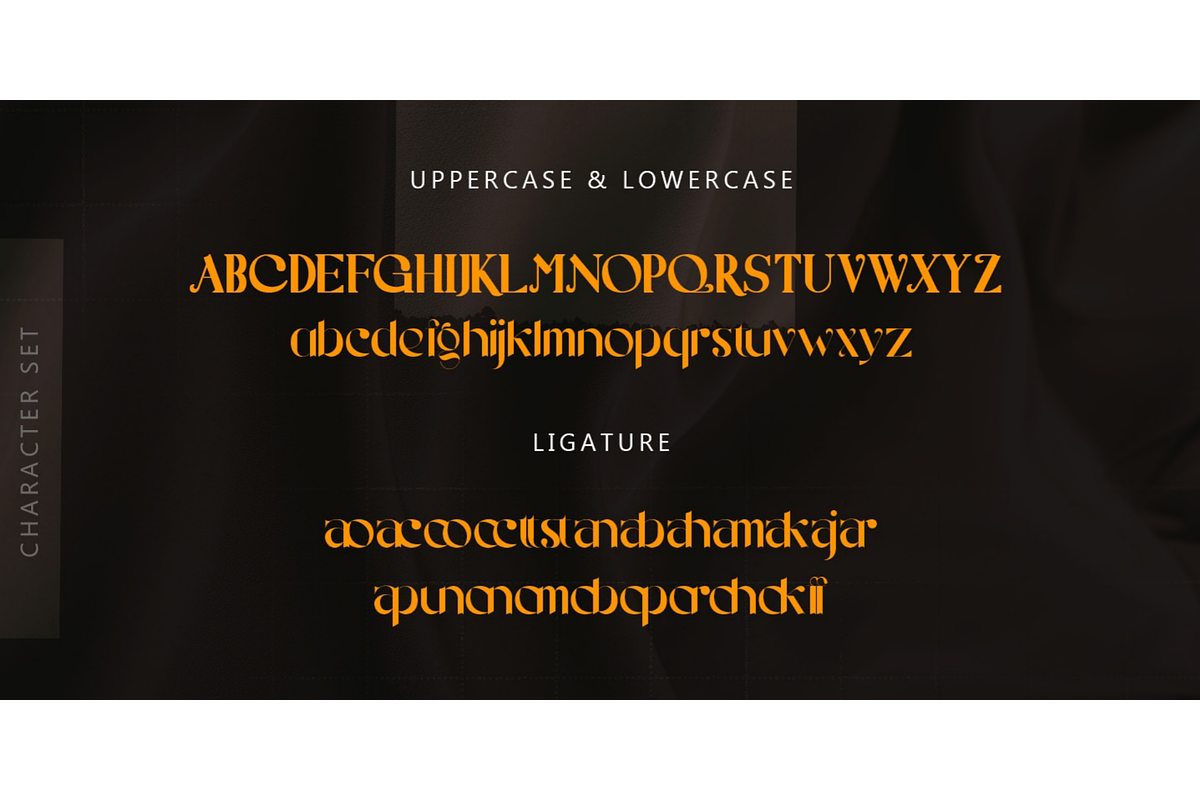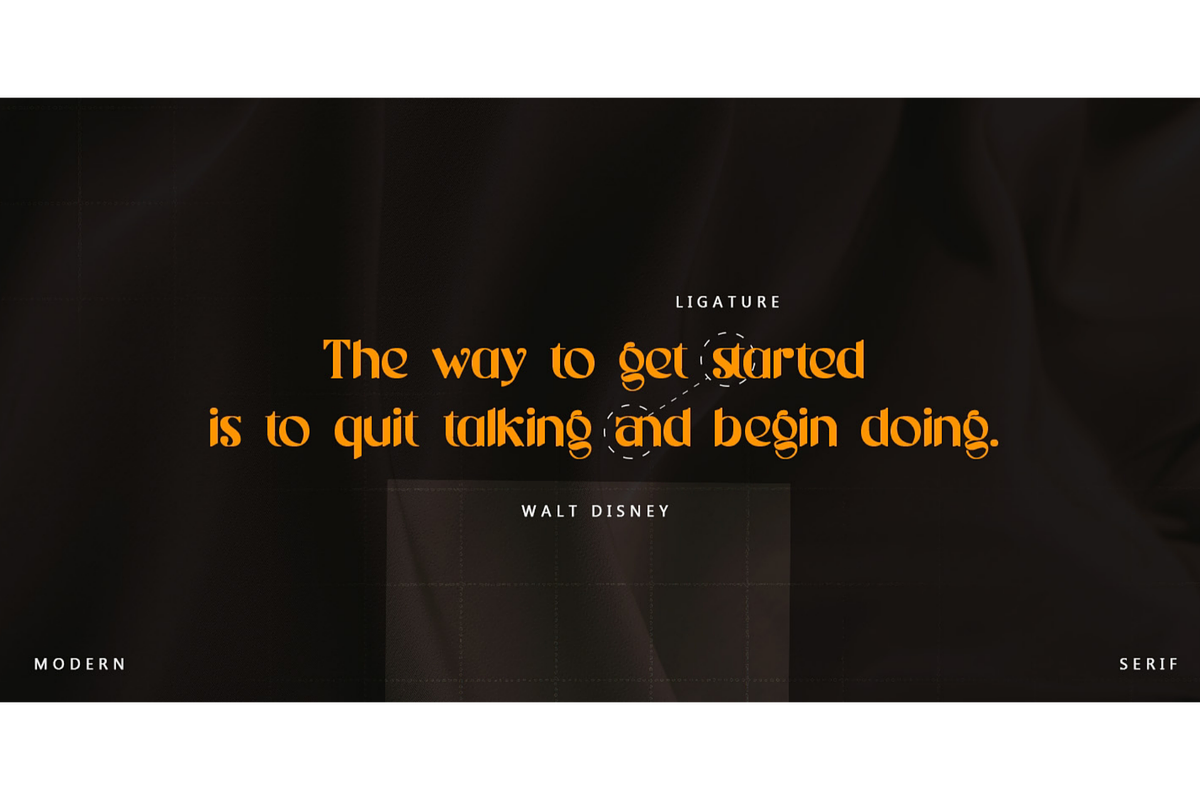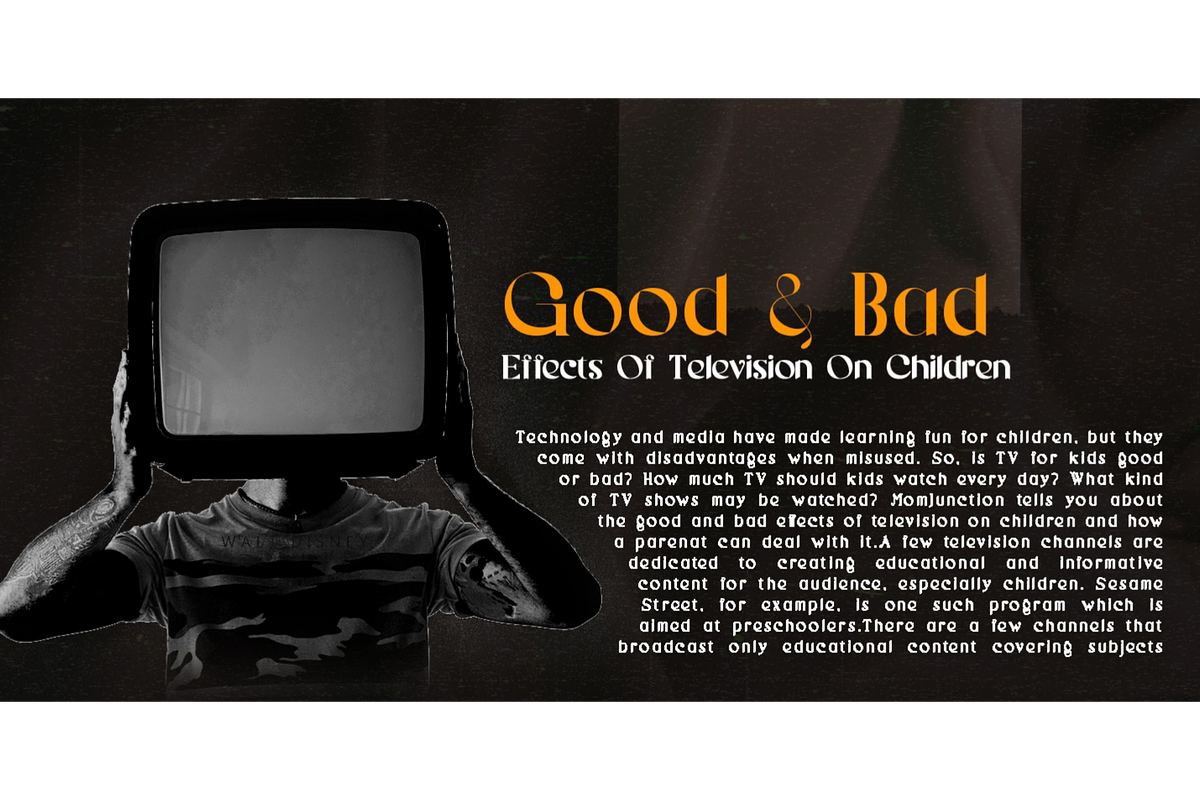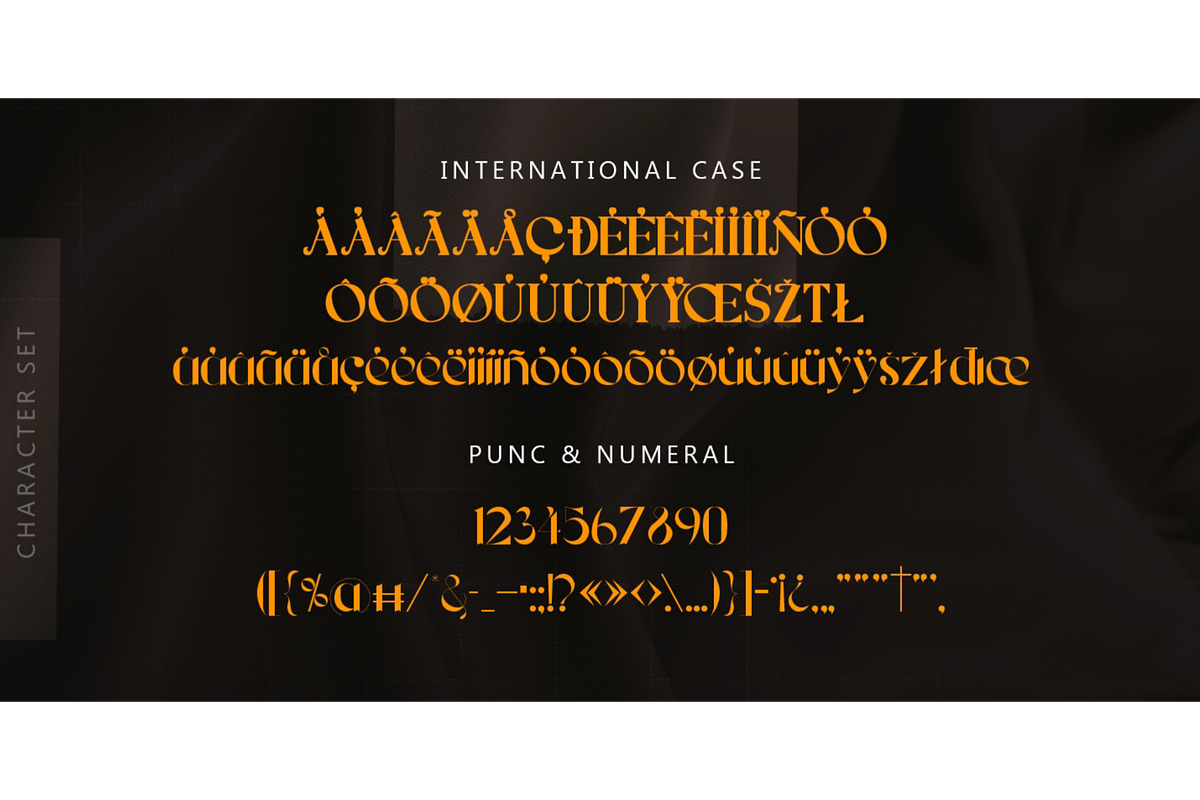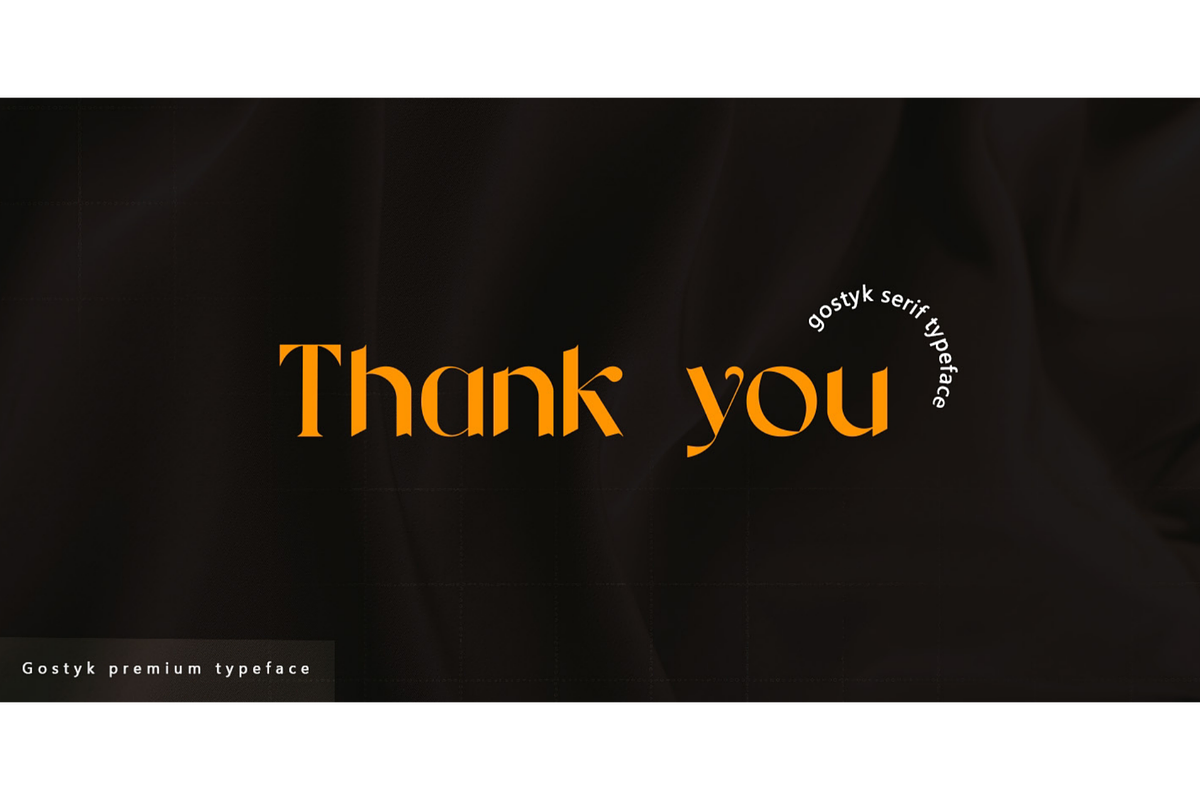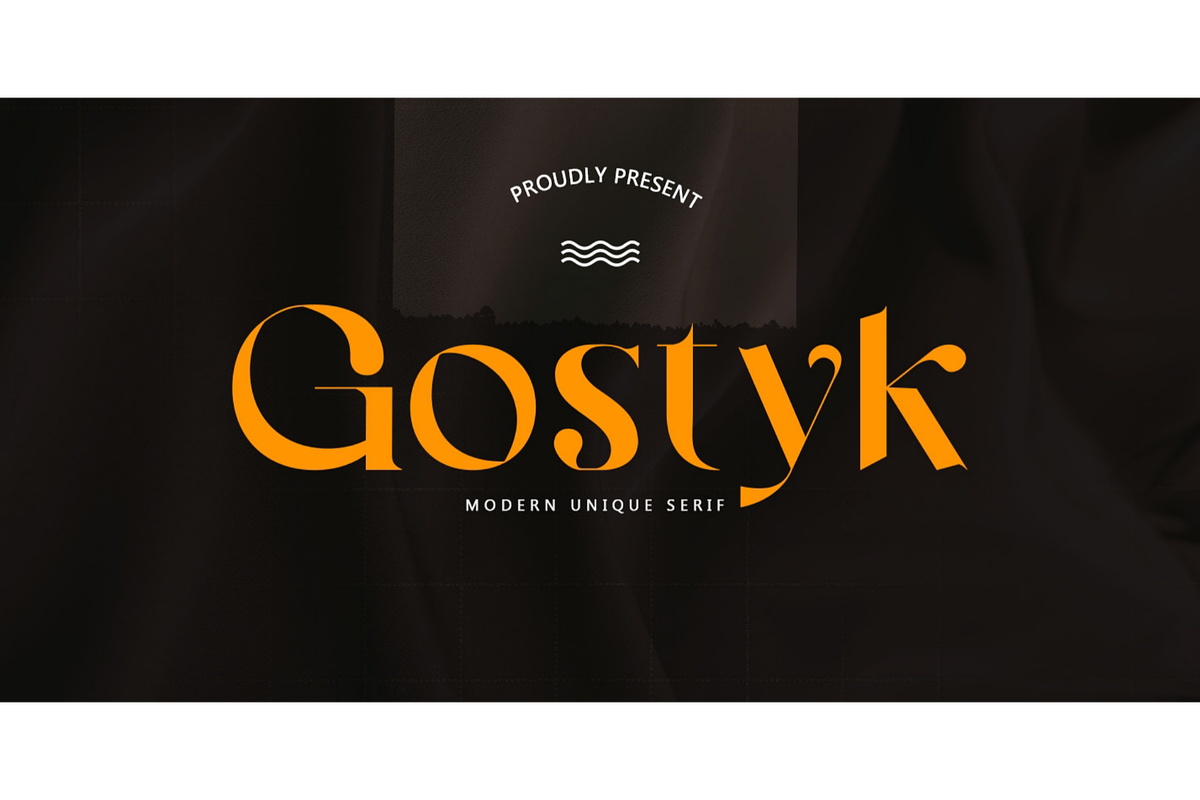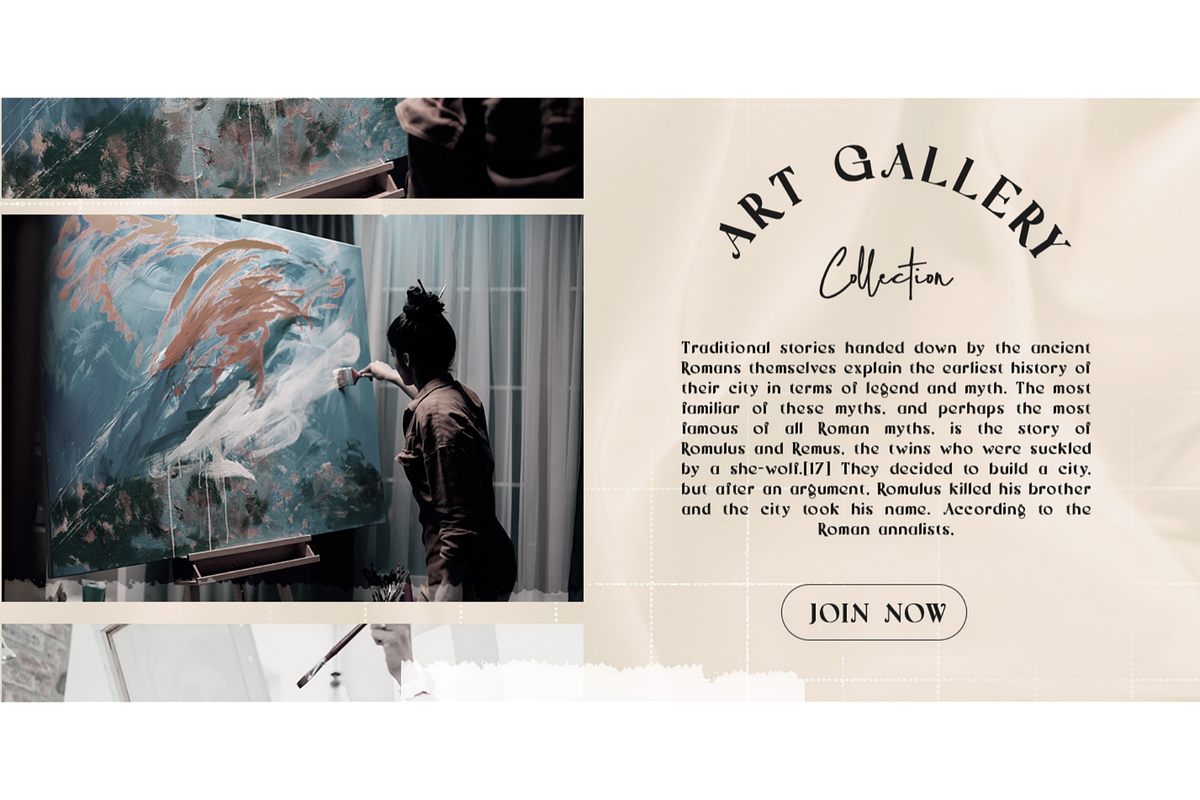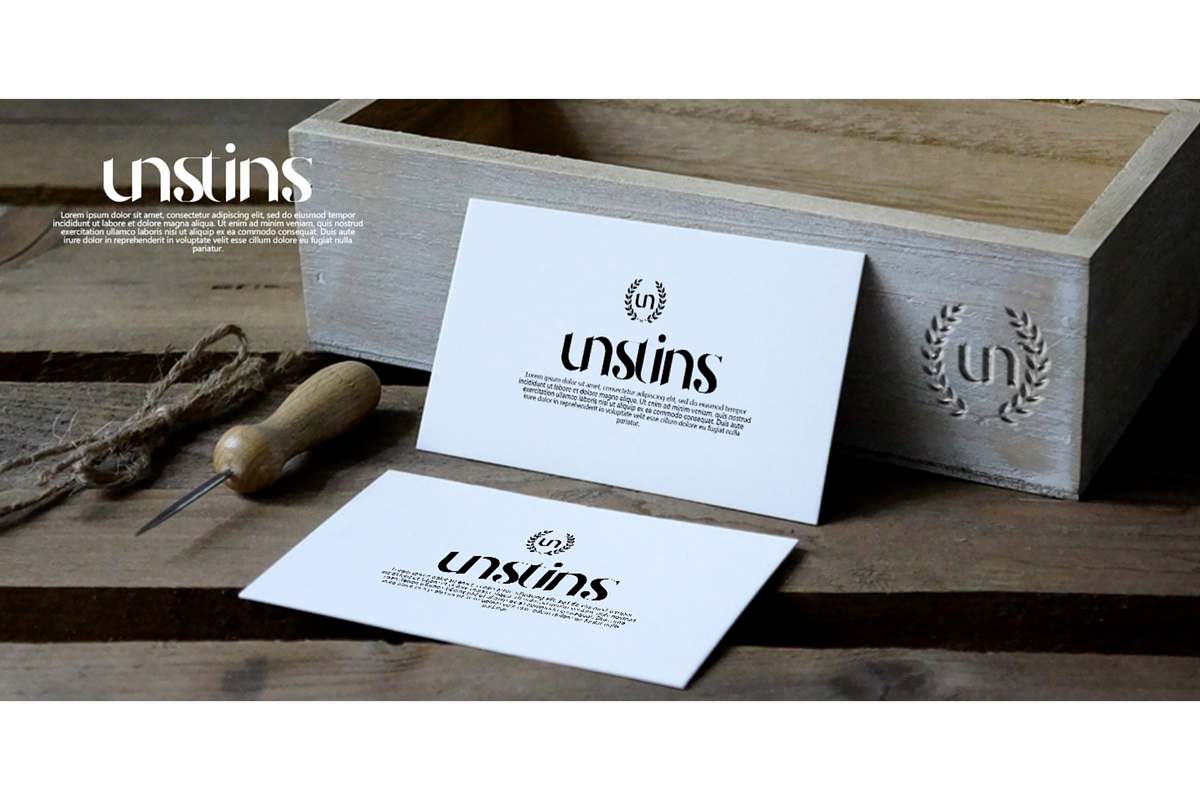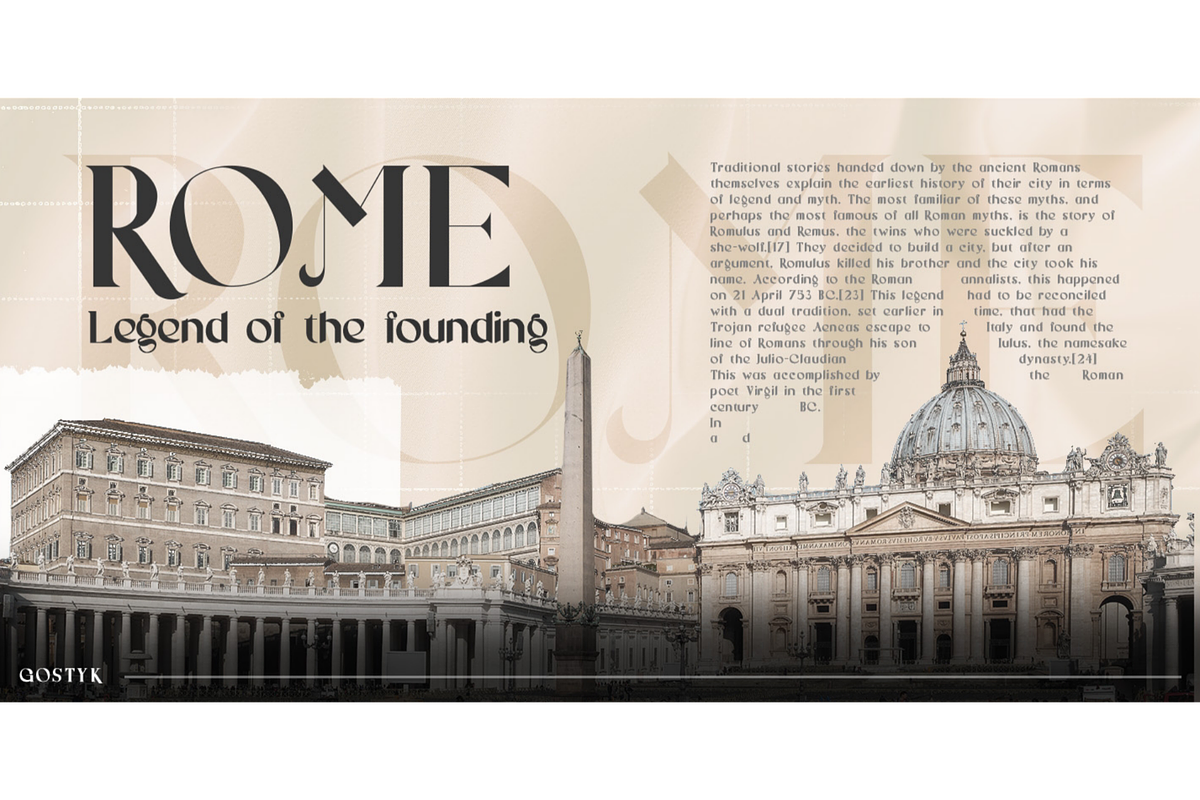
Gostyk - Modern Unique Serif Font
Gostyk is a bold and stylish font. Perfect for use in a variety of purposes, such as writing articles, magazines, branding projects or simply as stylish text to display on your screenshots.